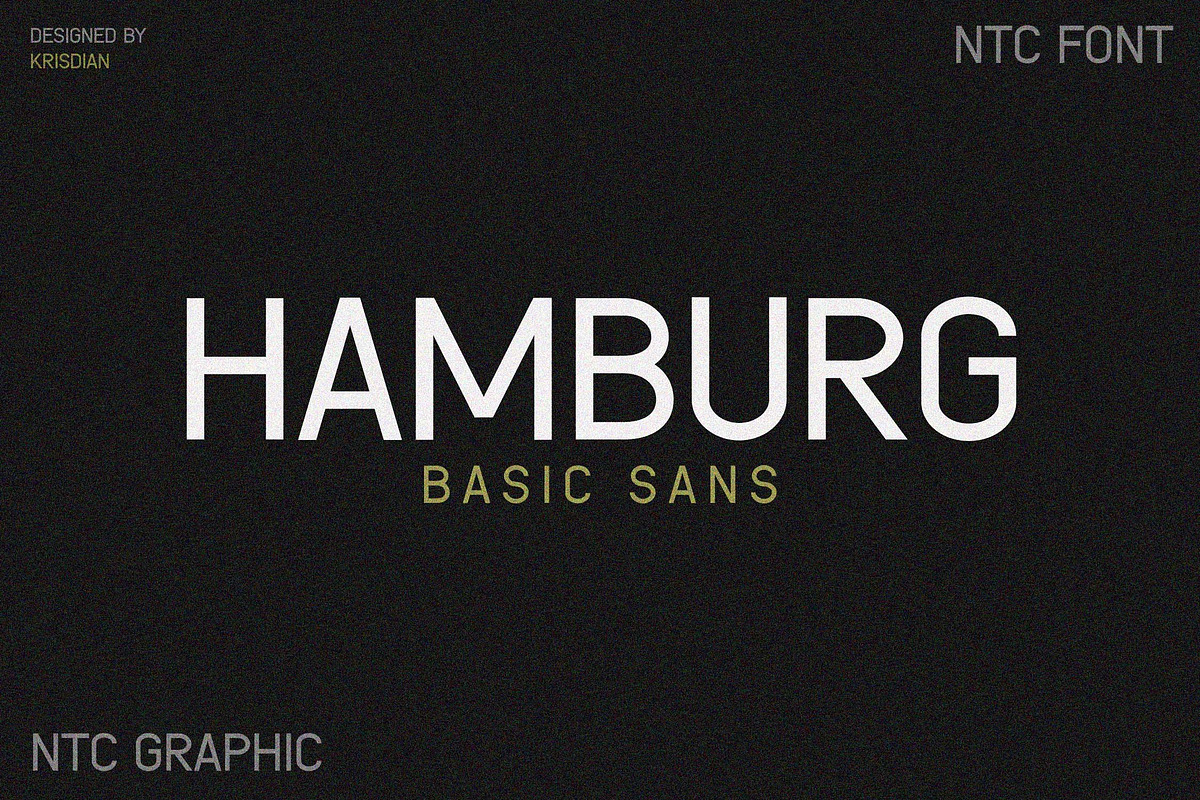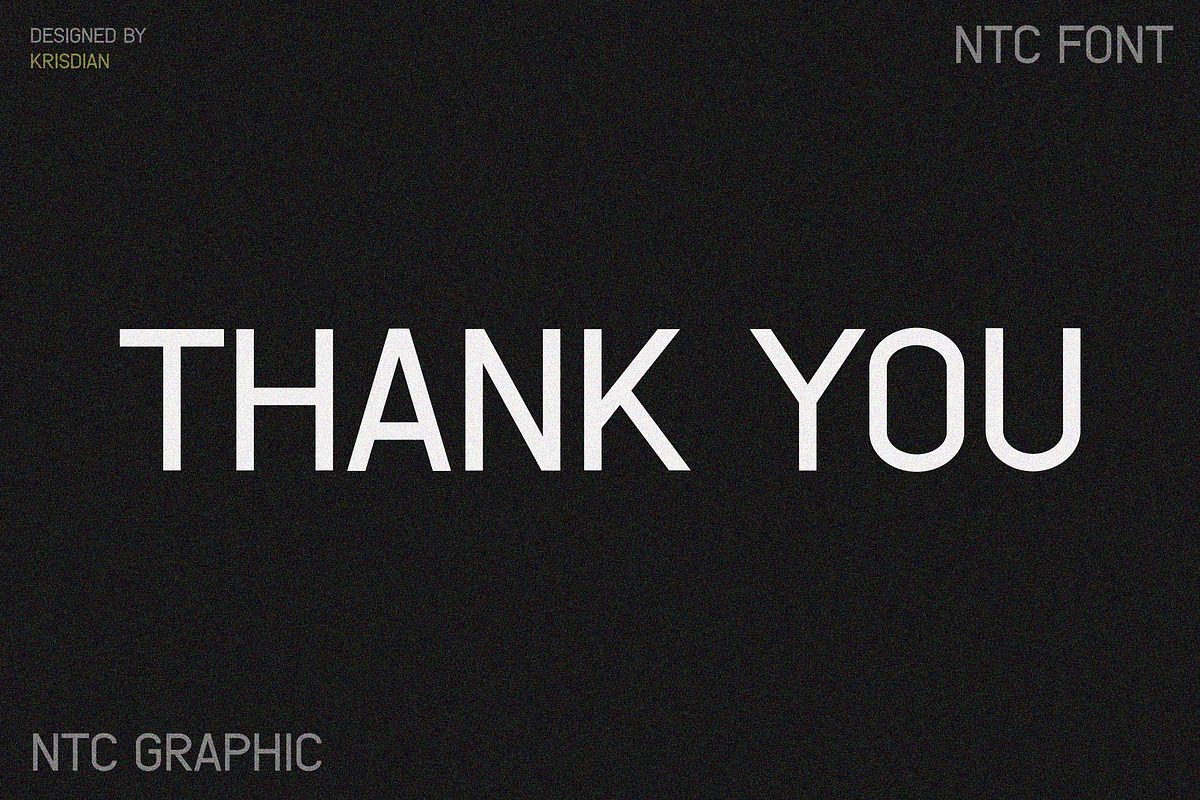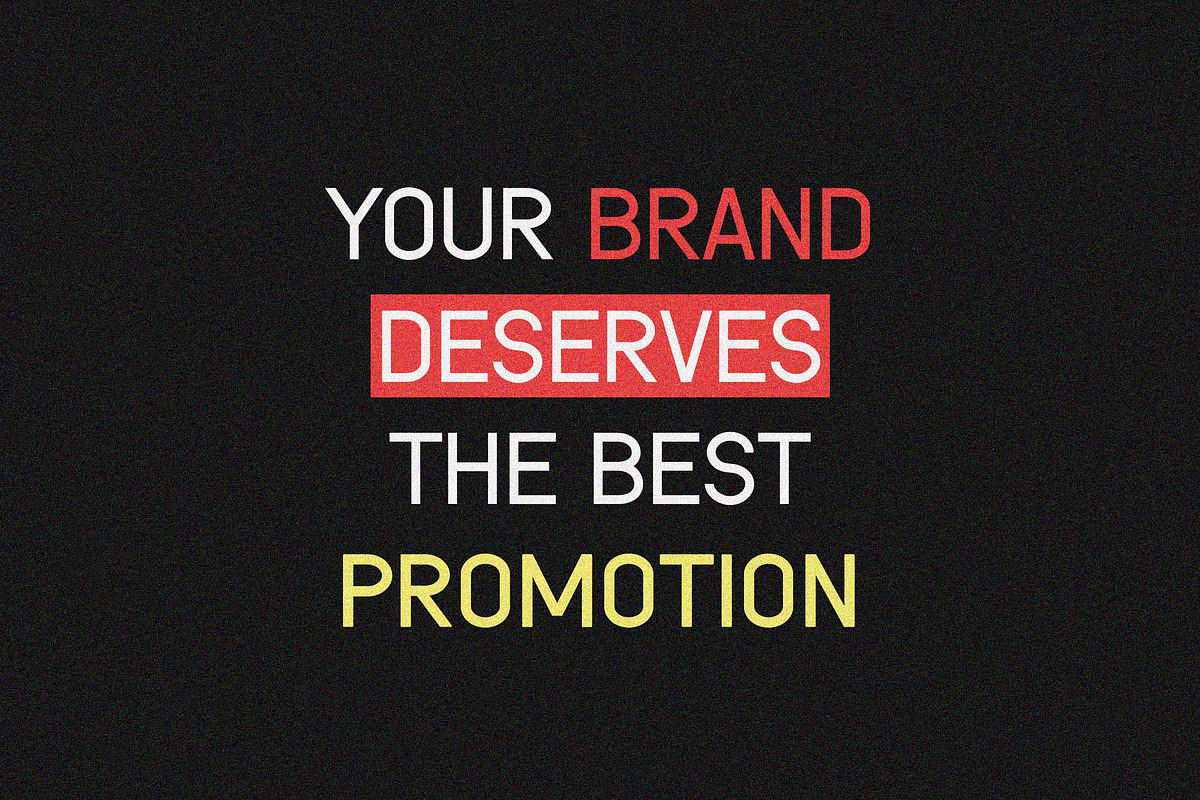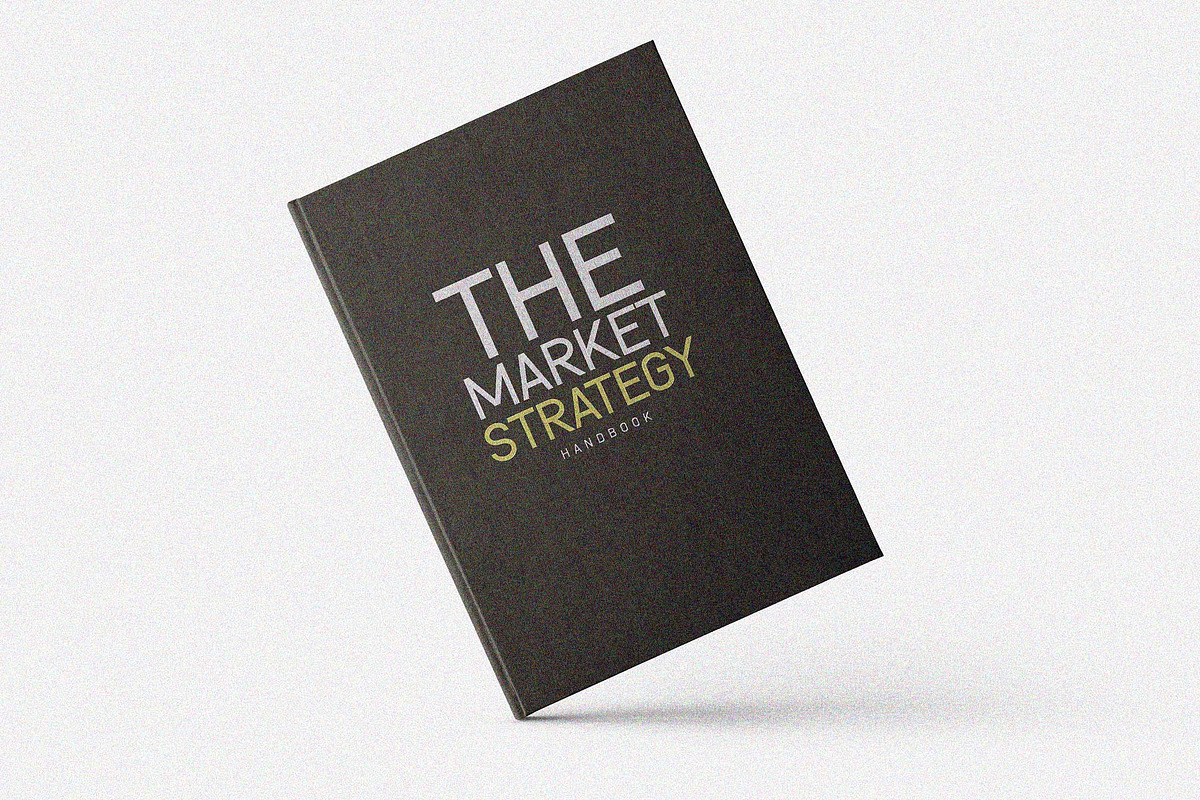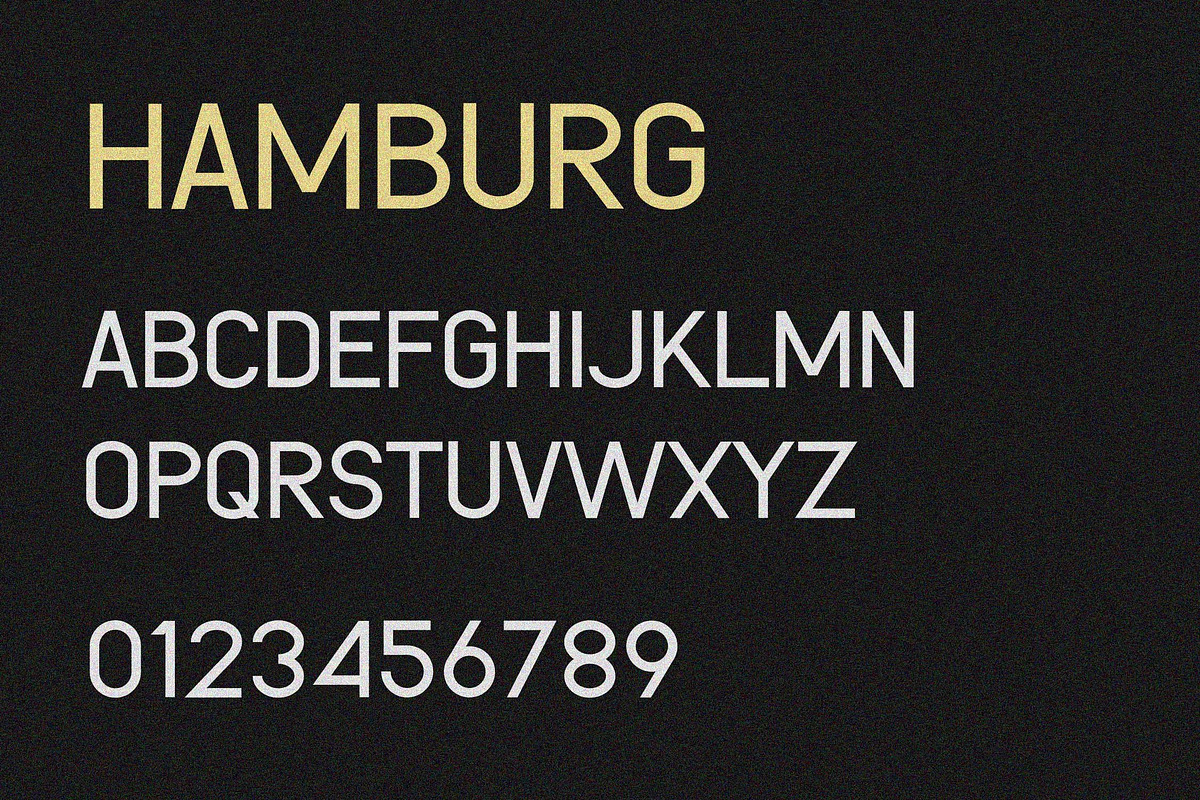
HAMBURG - Basic Sans Font
HAMBURG – Modern Minimalist Sans Serif Font
HAMBURG is a clean and versatile sans serif font designed with a minimalist aesthetic. Featuring uniquely crafted letterforms, it delivers a sleek and professional look, making it perfect for branding, editorial design, web typography, packaging, and more. Whether for digital or print projects, HAMBURG enhances readability while maintaining a stylish and modern appeal.